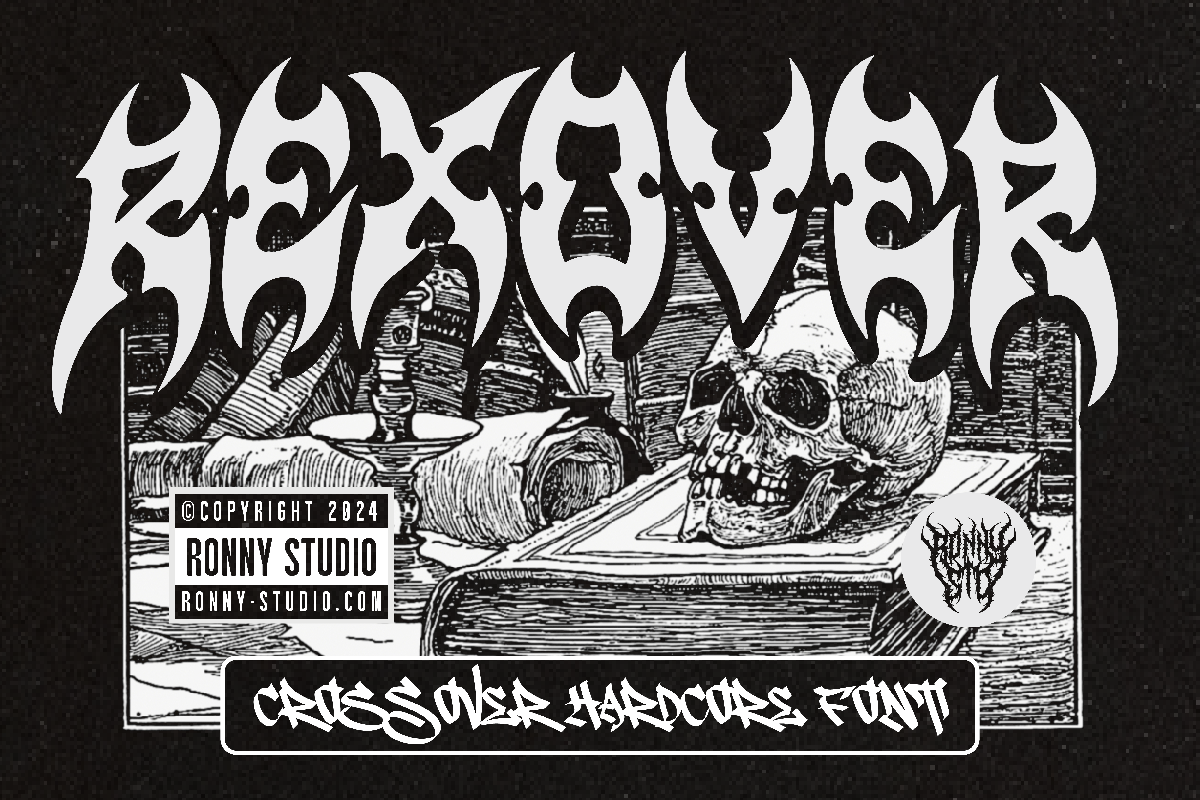
Rexover Aggressive Hardcore Font
Unleash the raw power of Rexover, a brutal crossover hardcore font designed for extreme typography needs. Inspired by the rebellious aesthetics of thrash metal, punk, and hardcore music, this font brings aggressive energy to any design.
✔ Bold & Aggressive Design – Perfect for band logos, album covers, merch, and streetwear branding.
✔ Sharp & Edgy Letterforms – Crafted to stand out with hardcore, thrash, and gothic styles.
✔ Ideal For: Heavy metal bands, music festivals, tattoo designs, poster art, gaming graphics, and underground streetwear.